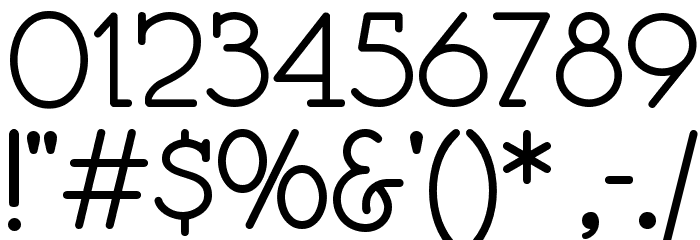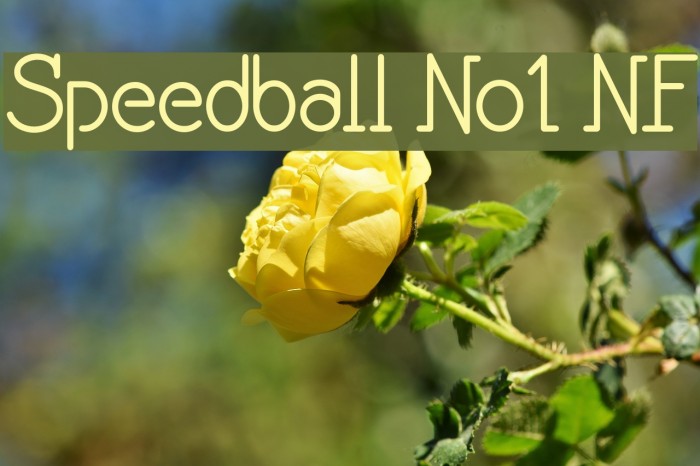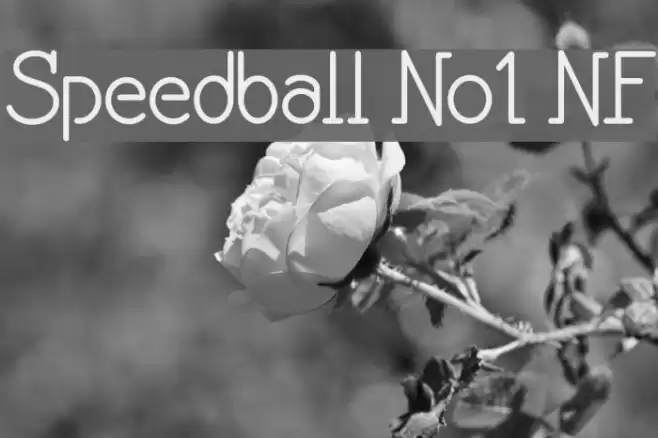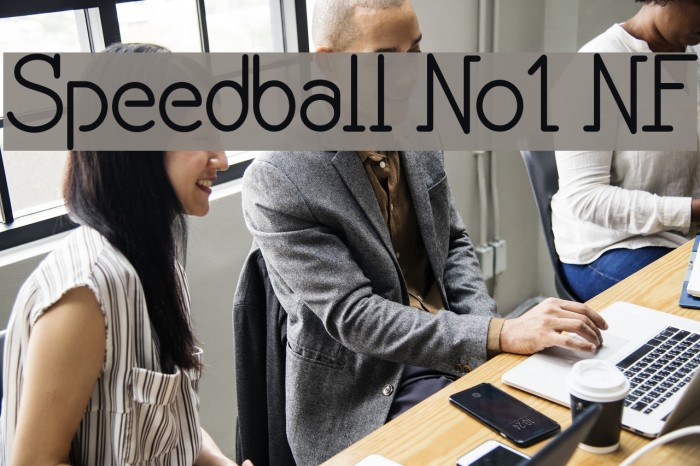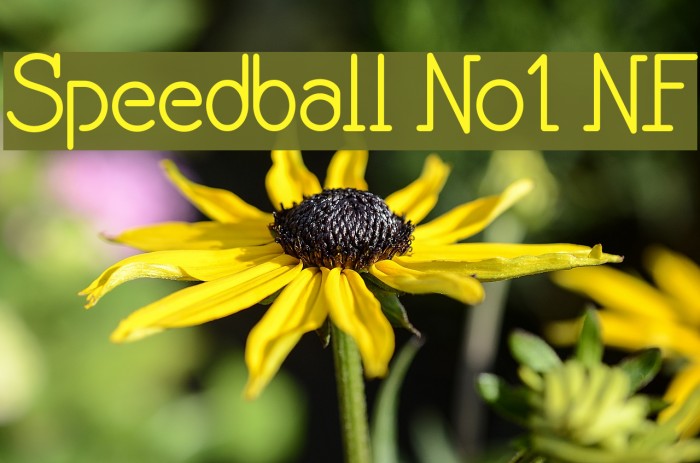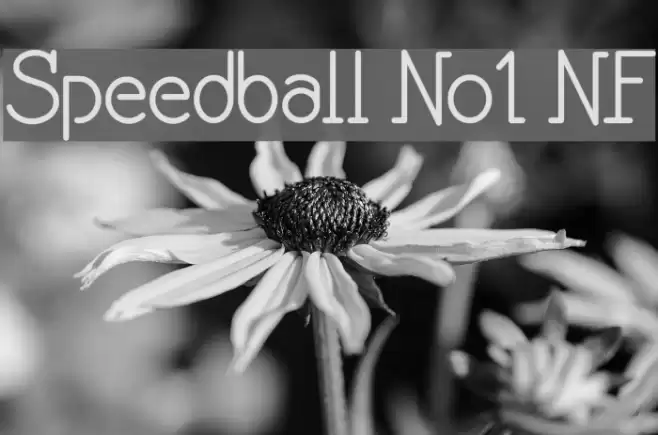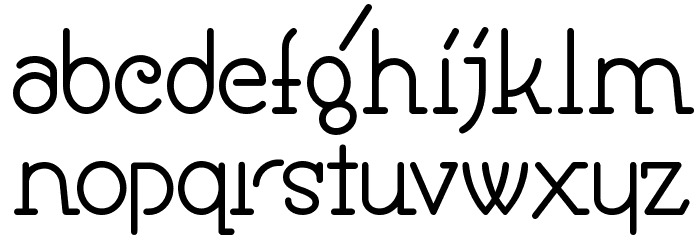
Speedball No1 NF Font
Speedball No1 NF Description
This font features a unique blend of geometric and script-like elements, creating a playful yet structured appearance. The uppercase letters are characterized by their rounded forms and consistent stroke width, giving them a modern and approachable feel. The lowercase letters maintain a similar style, with some characters exhibiting slight curves that add a touch of elegance. The numerals are bold and clear, ensuring readability. Special characters are designed to match the overall aesthetic, making them suitable for various design contexts. This font's distinct style makes it versatile for both formal and informal applications.
| Use Case | Logos, Headlines, Posters |
| Proposed Projects | Ideal for branding, packaging, children's books, and creative posters. |